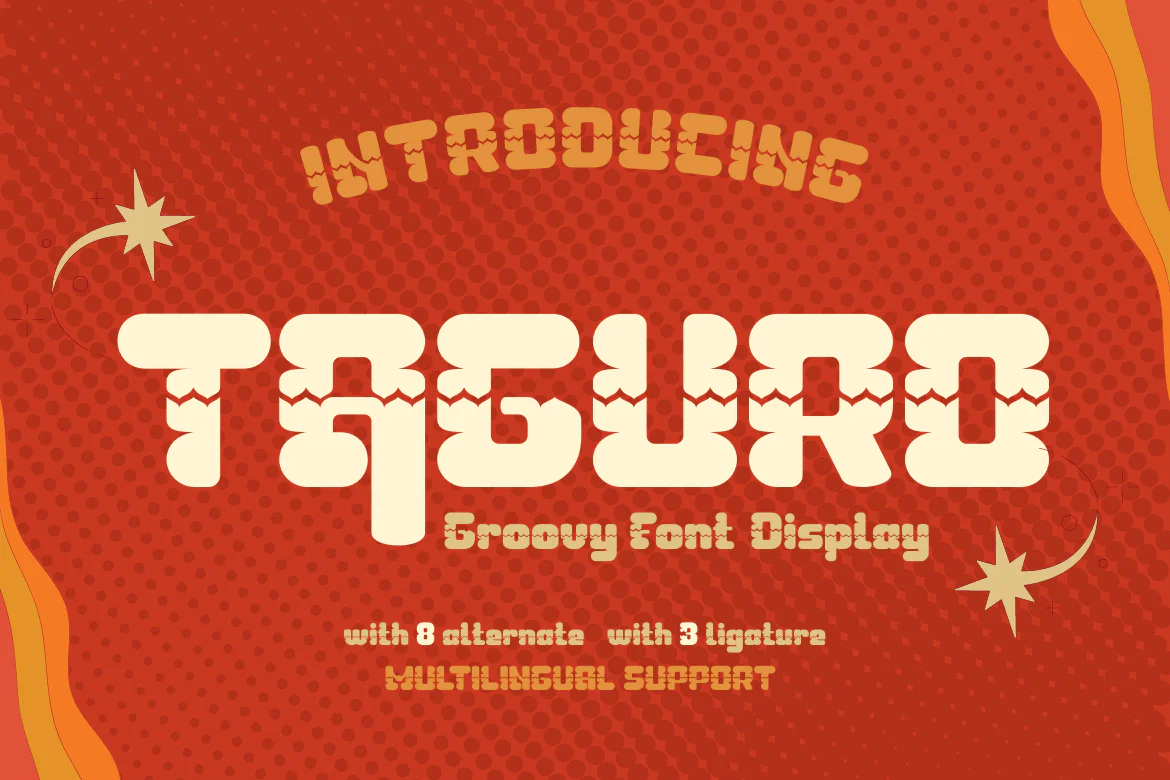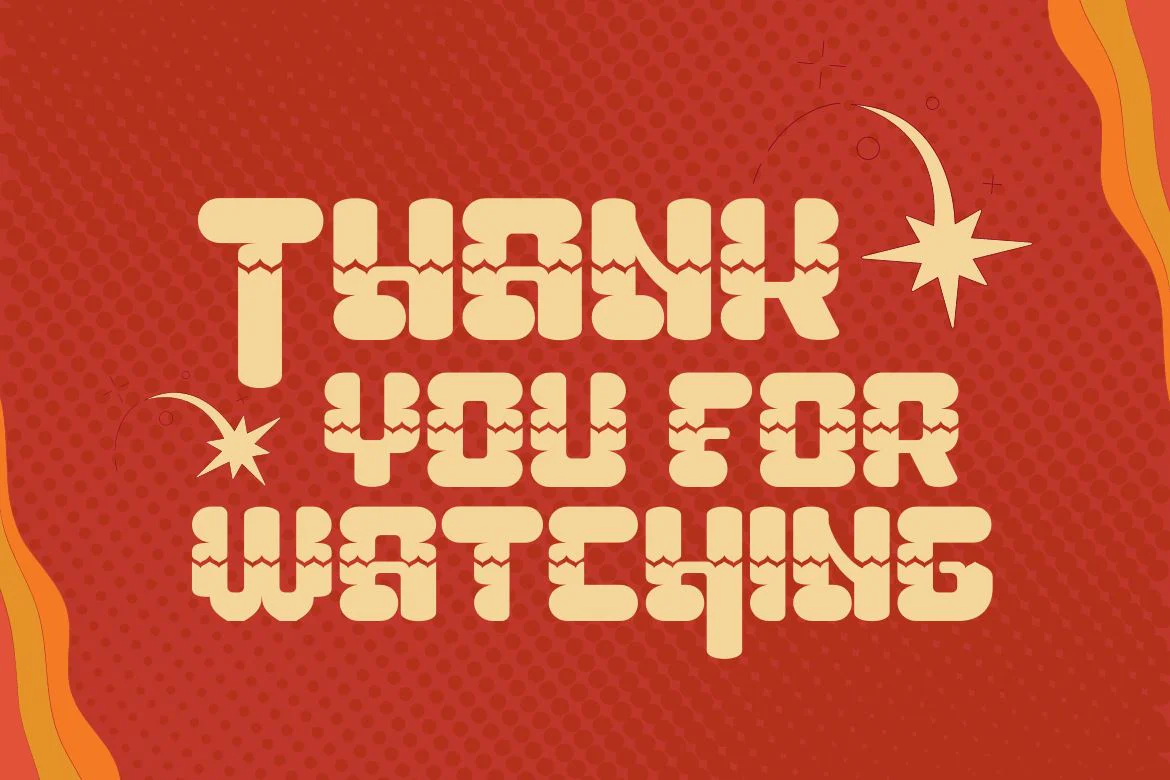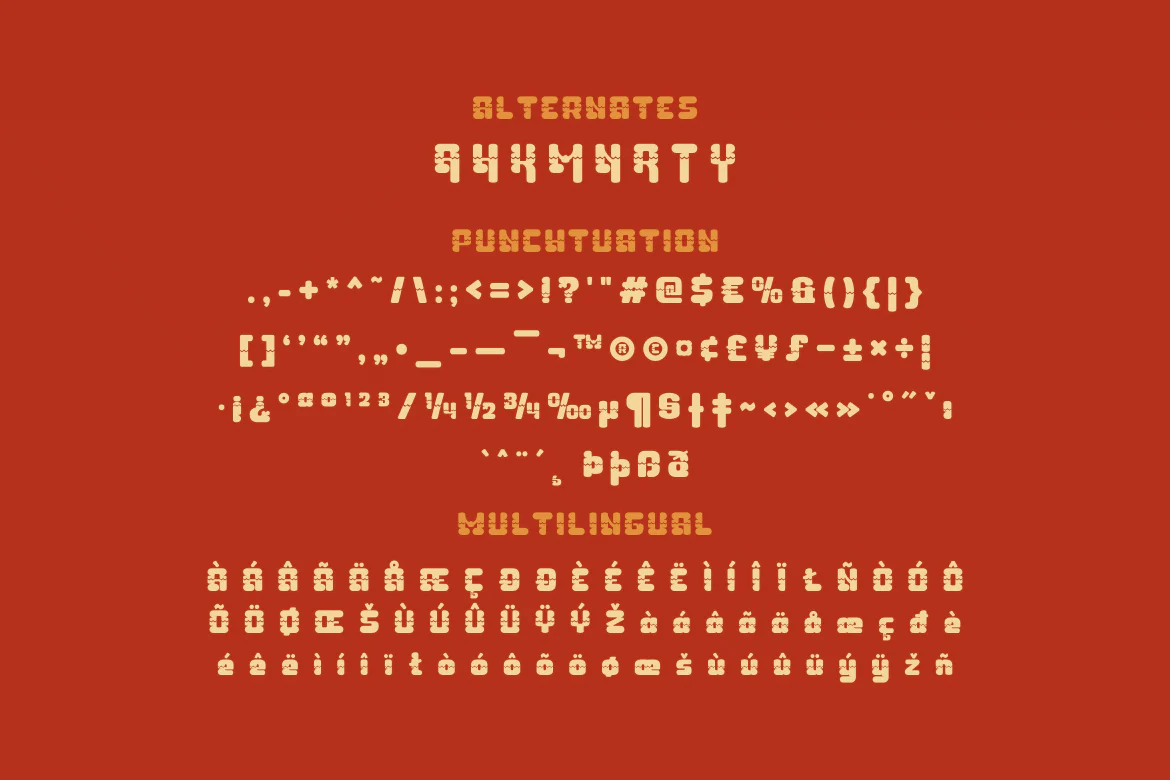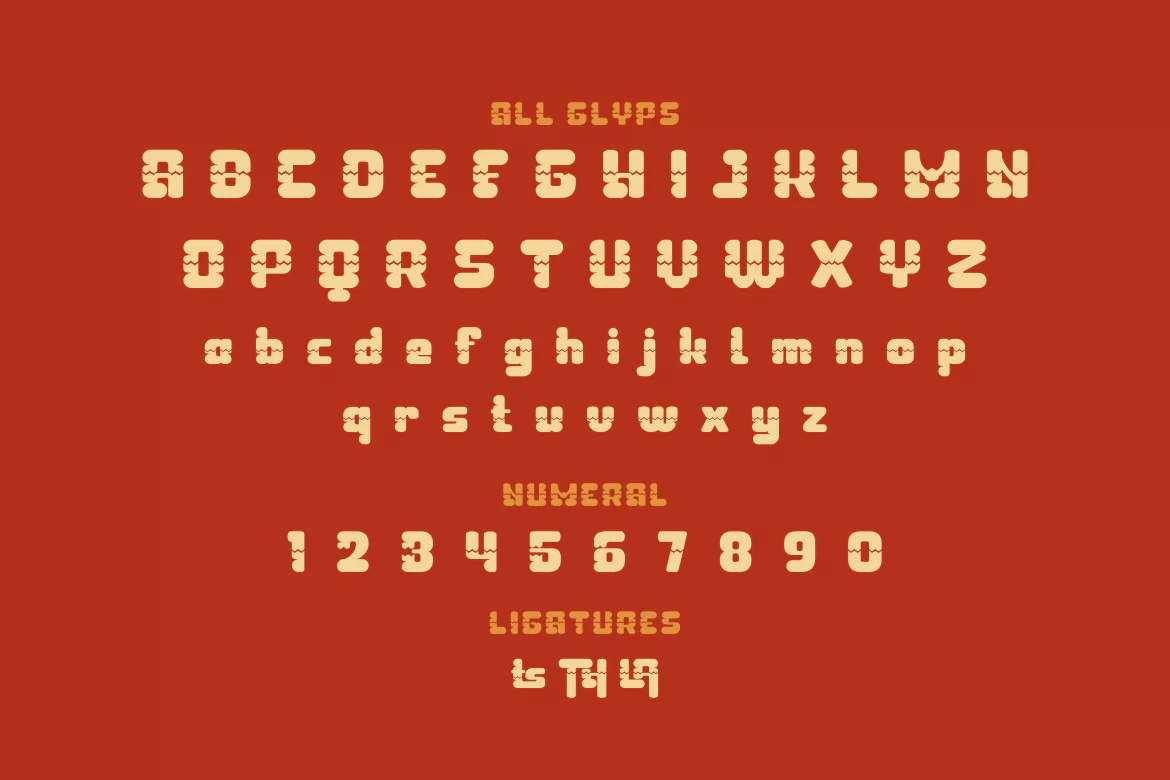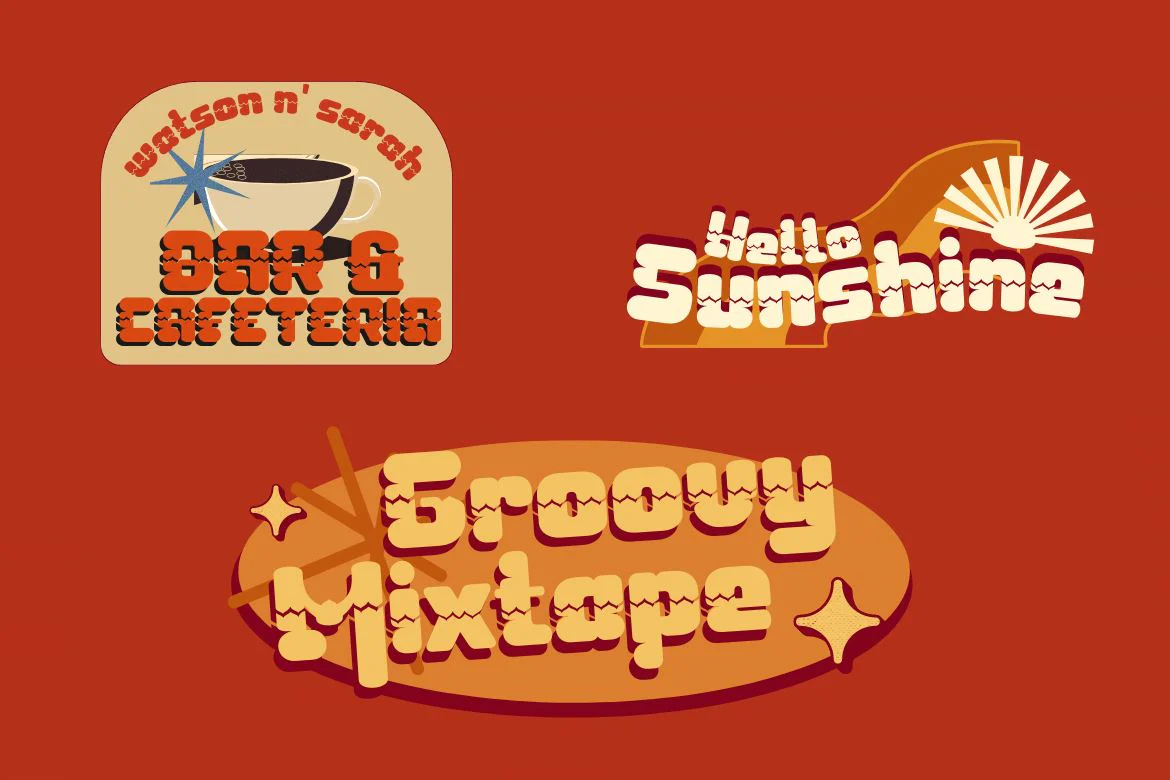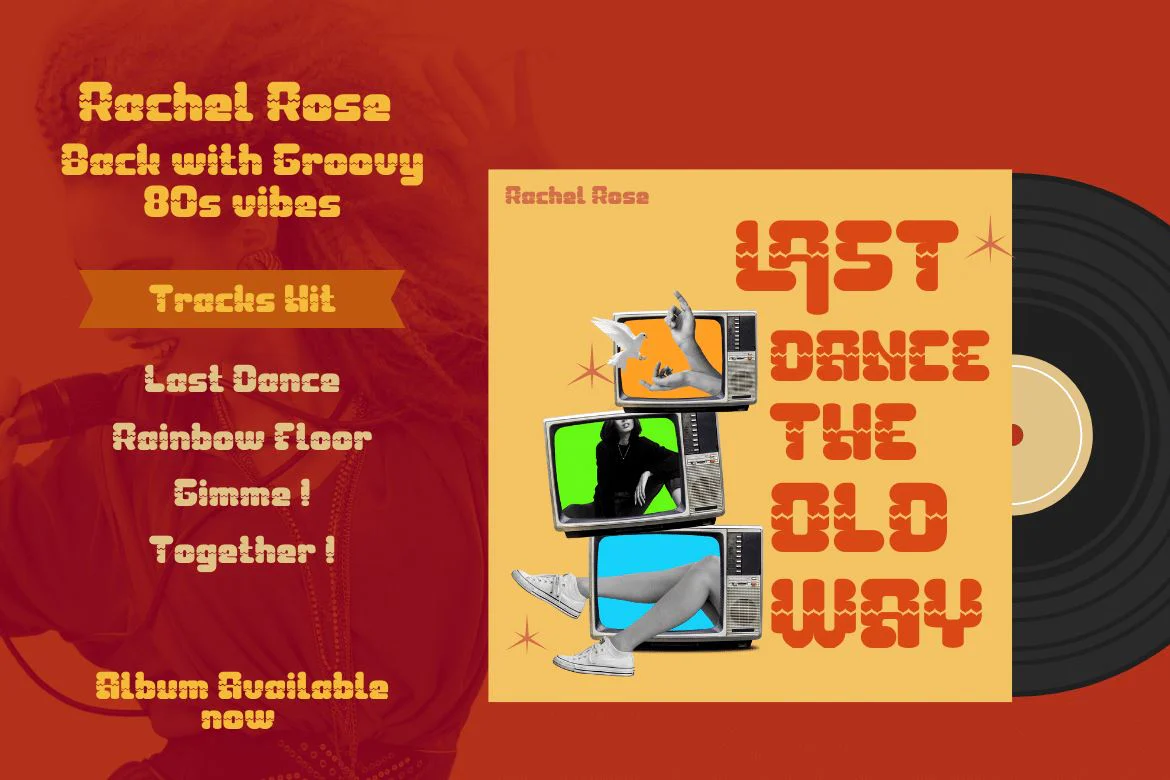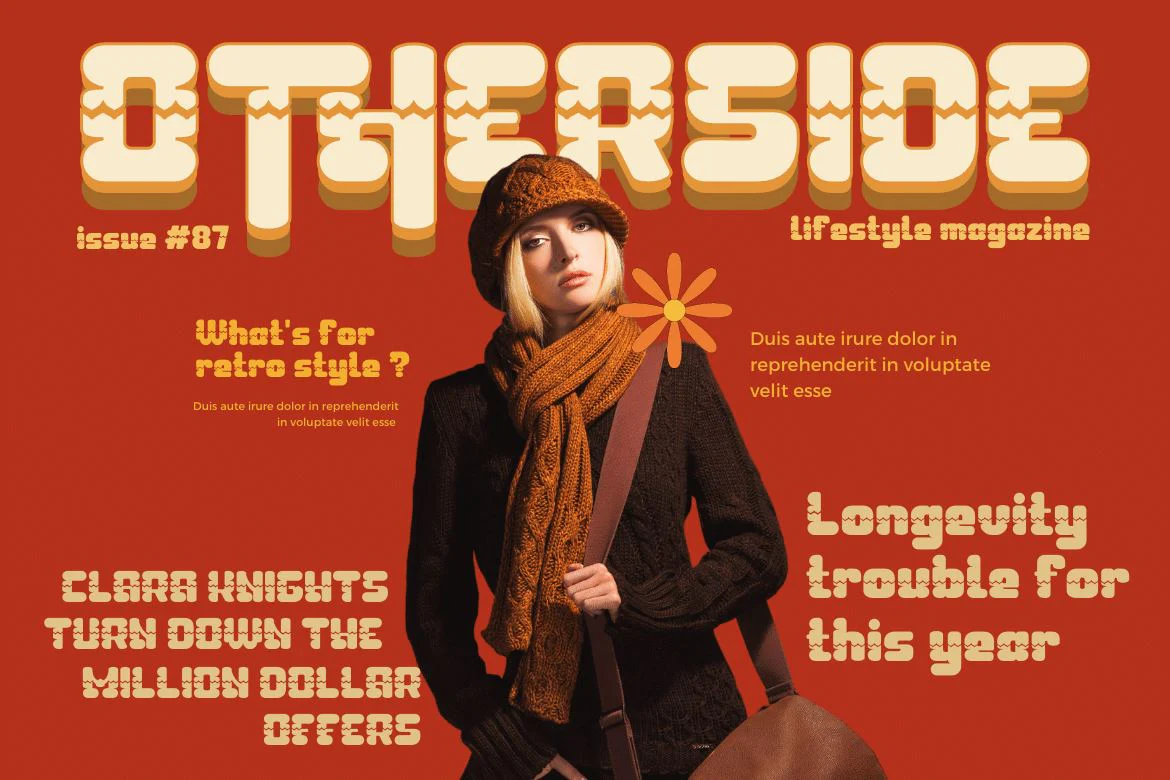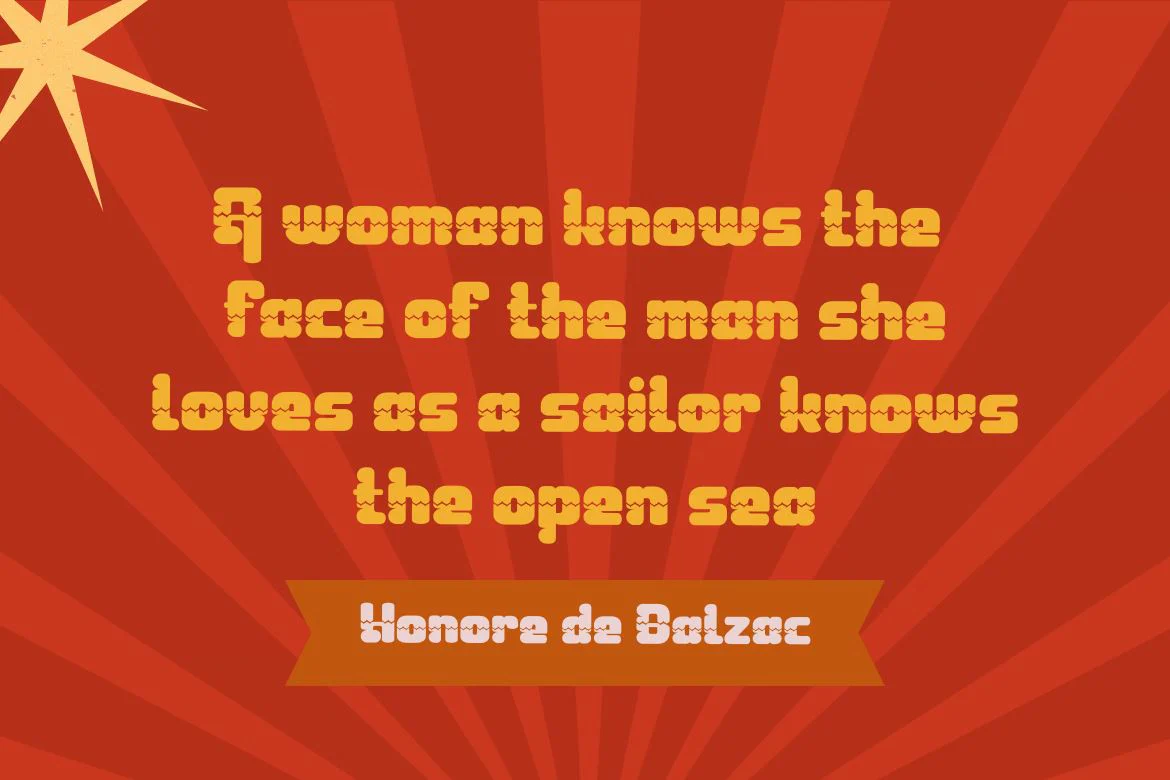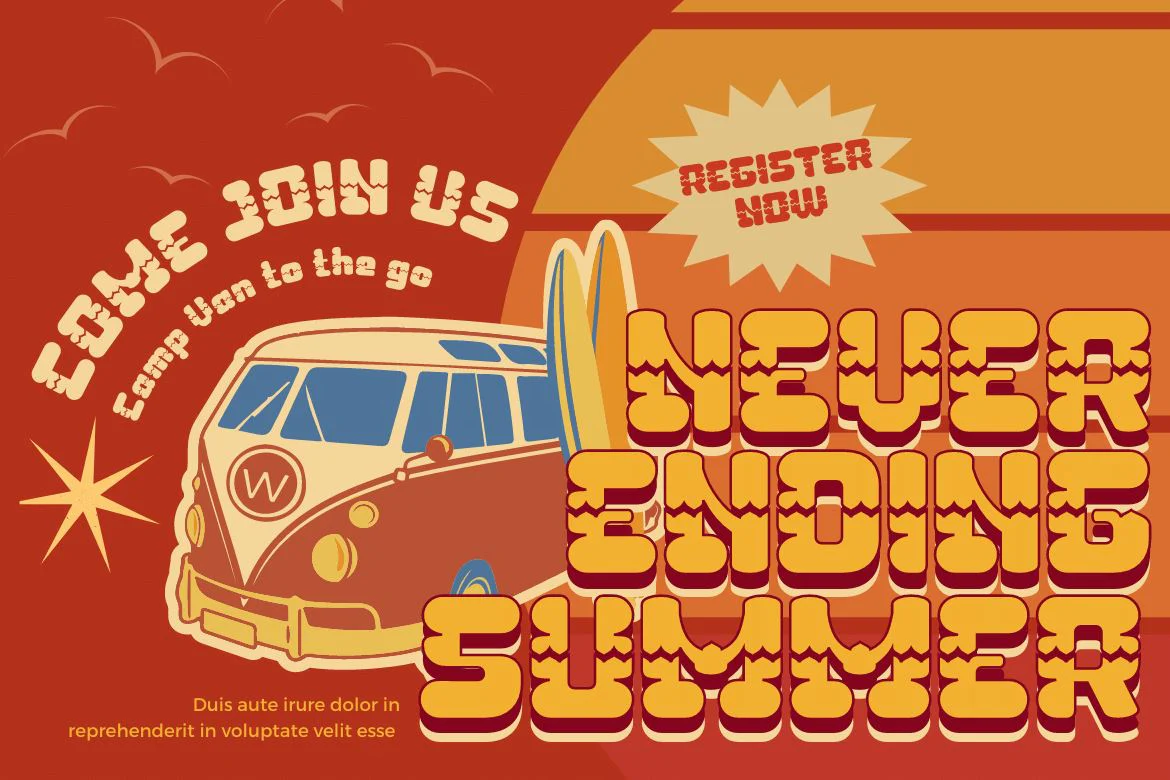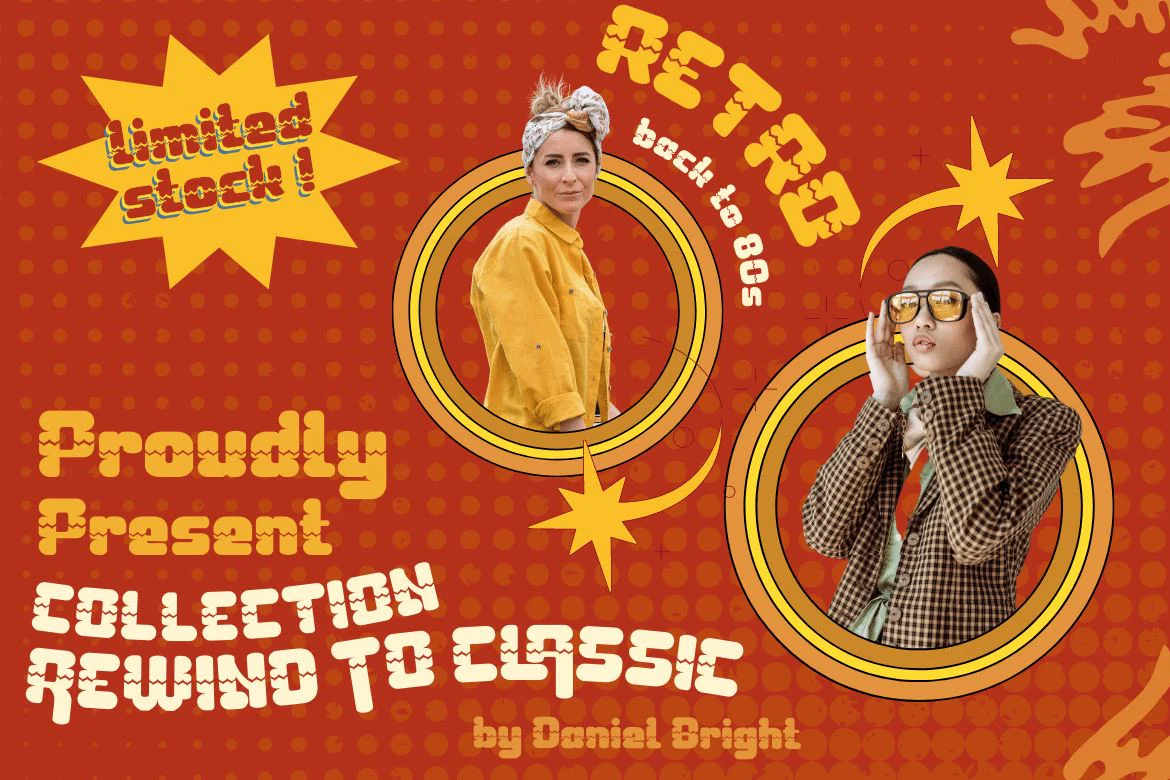
TAGURO | Groovy Retro Font
Taguro Groovy is a geometric font and the curved lines in each anatomy with high contrast and bold characters make this a powerful font for your projects. This font has an elegant and distinct style that makes it visually different from many other fonts. It makes your design stand out from the rest. This delightful font has precisely defined Curves and the subtle strokes of the typeface make this font very pleasing to the eye.